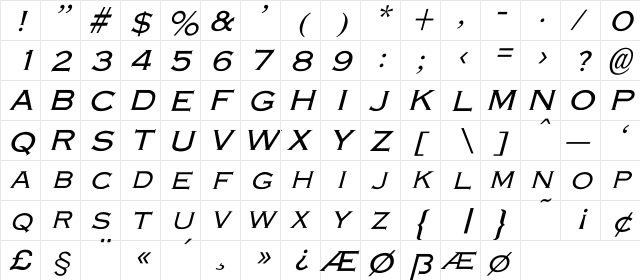
Engraver-Light Italic Italic Font Preview
Design Context for Engraver-Light Italic Typeface
Engraver-Light Italic takes a measured approach to typography — its balanced proportions and neutral character make it a reliable workhorse for both digital and print work. The dynamic lean of this cut emphasises speed and emphasis in any layout. Its slender proportions lend an understated elegance to any composition.
Pro Tip: Try Engraver-Light Italic for annotation and caption copy alongside an upright companion — the contrast in angle creates a dynamic but ordered typographic system.